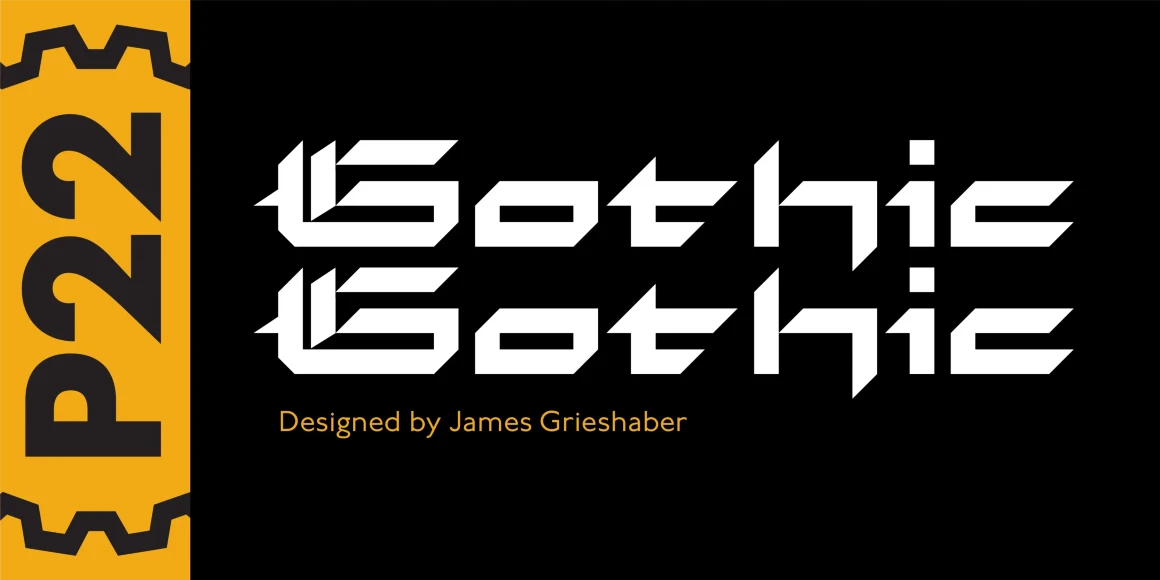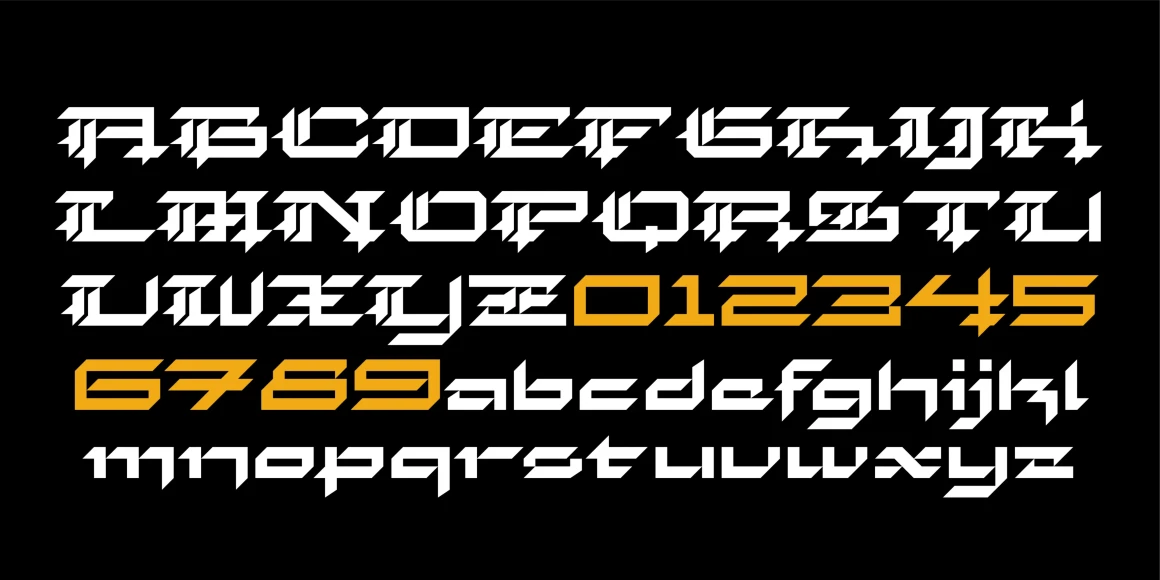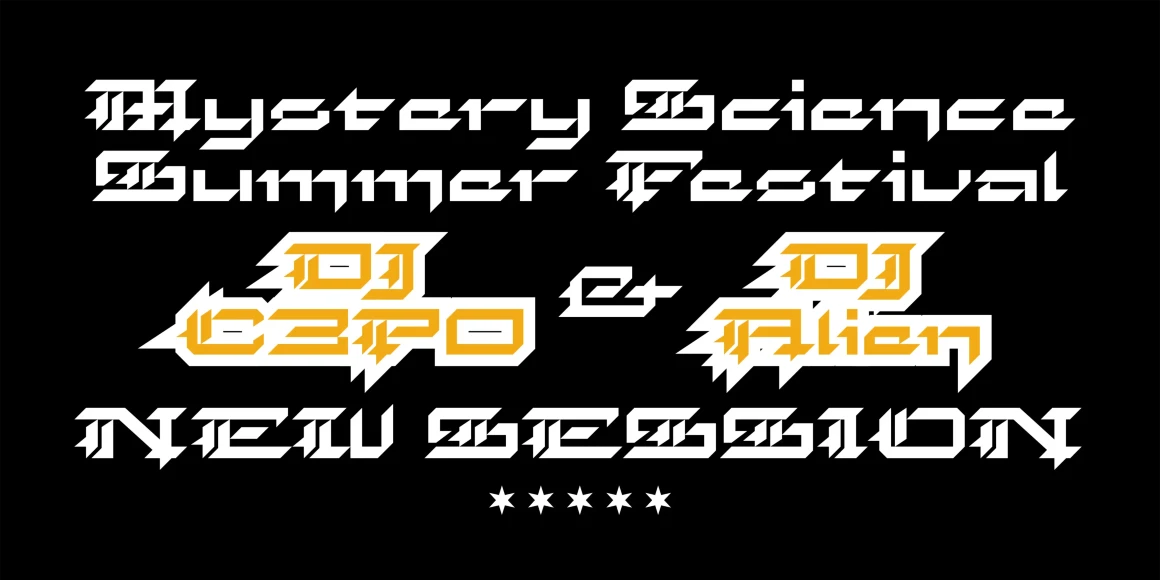
Gothic Gothic
The name says it all. Gothic from the old literary style and/or current subculture genre. And Gothic meaning a block or sans serif style of lettering. The concept was to take the classic German style lettering and create a contempory extended block letter typeface. The result is a fusion of old and new.
Designed by James Grieshaber